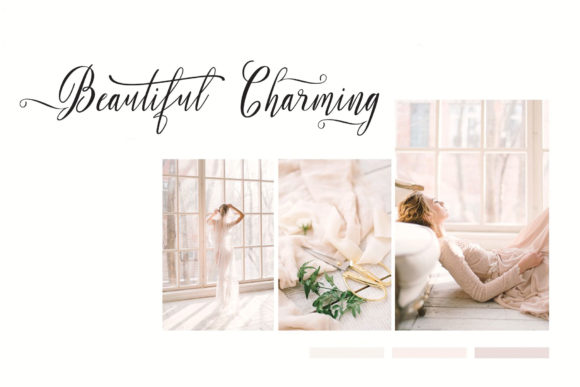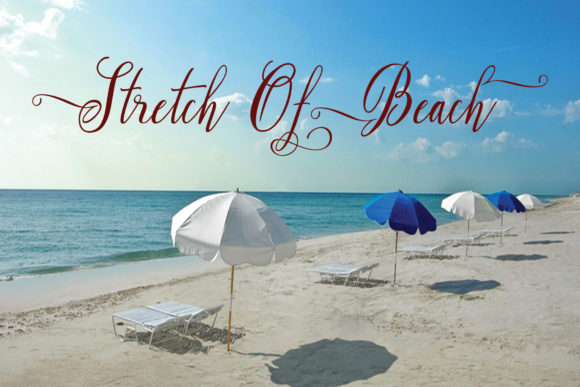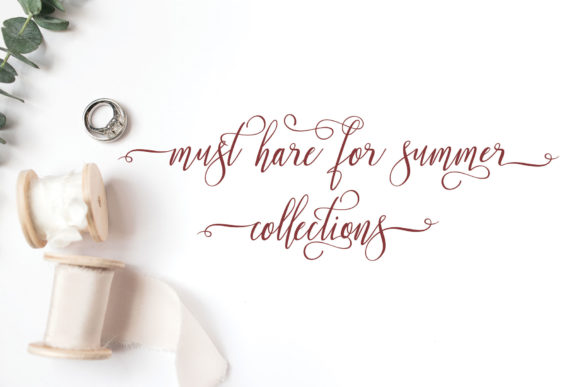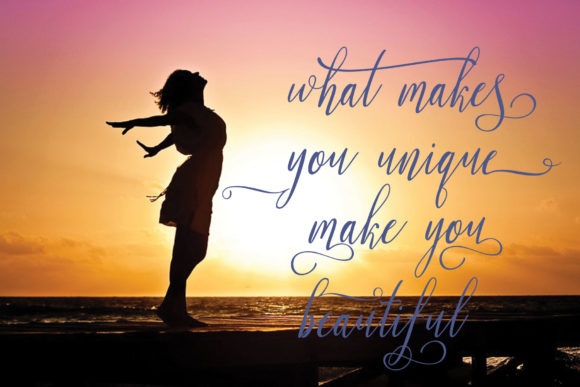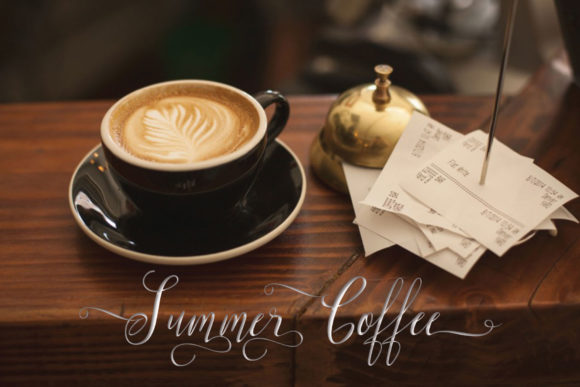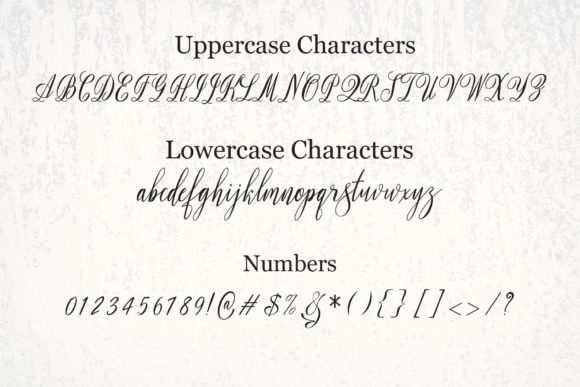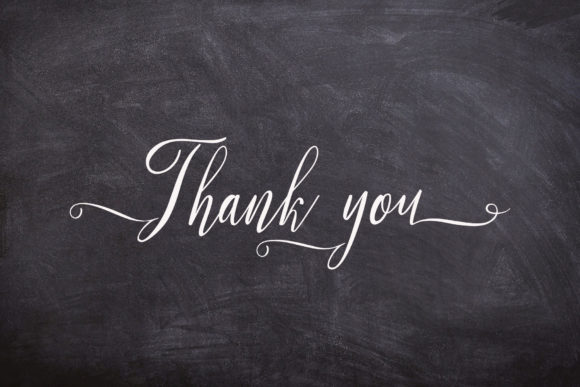
Custhin Font
About Custhin Font
Custhin is a lovely and modern handwritten font with a playful vibe. It will turn any design project into a piece of art.